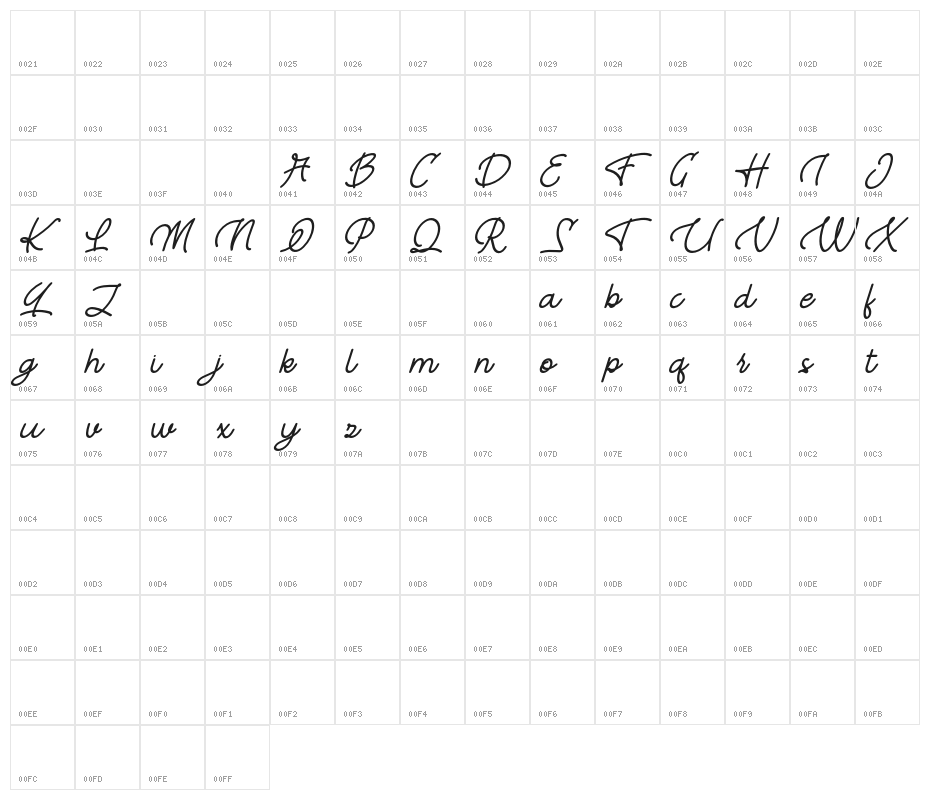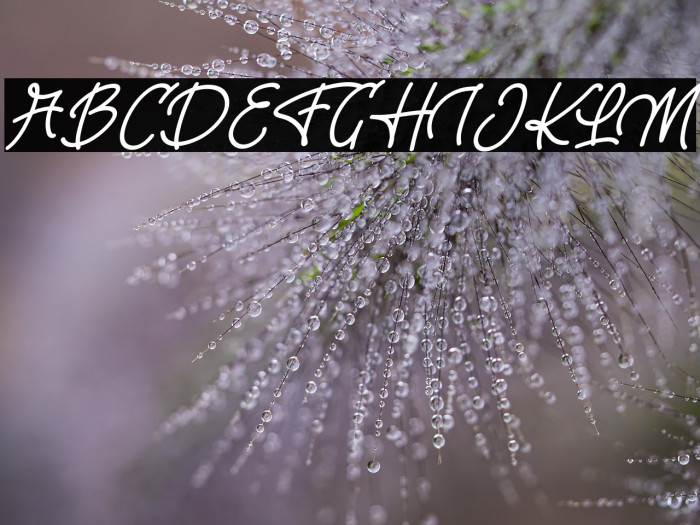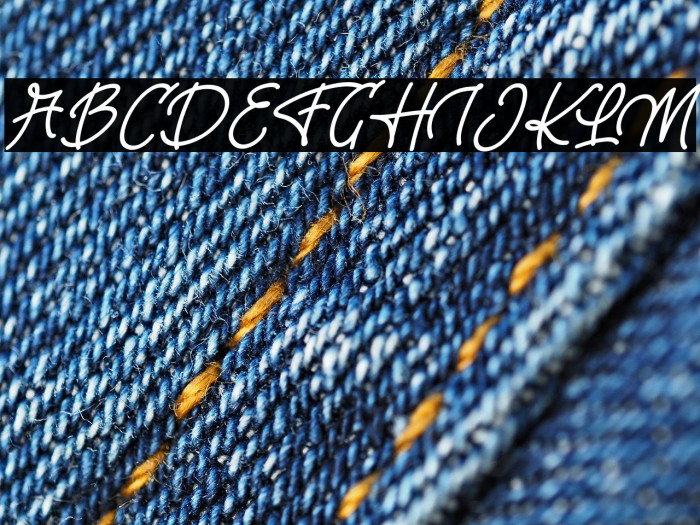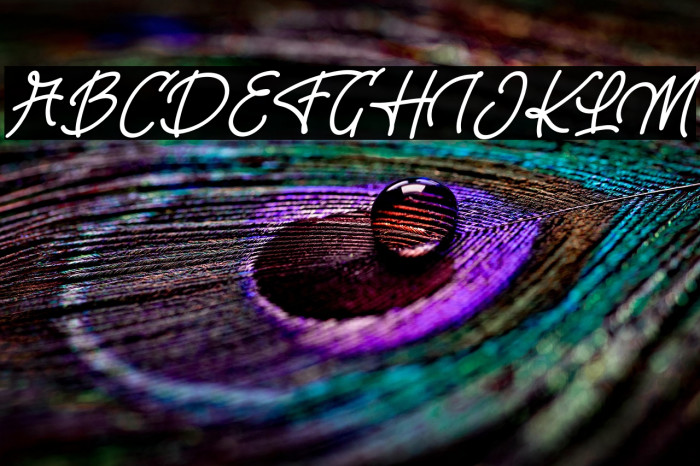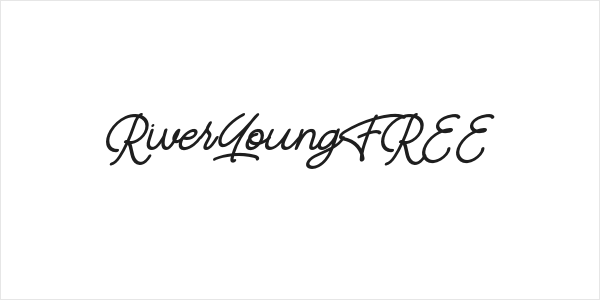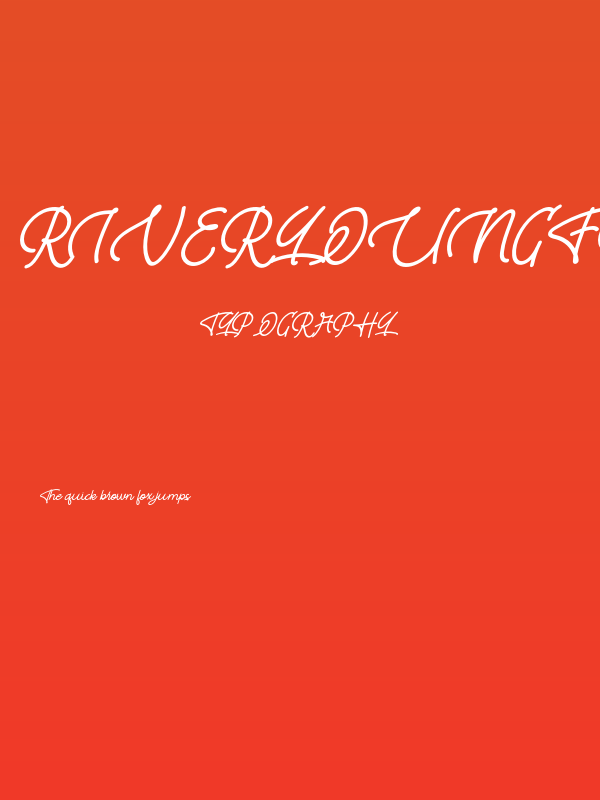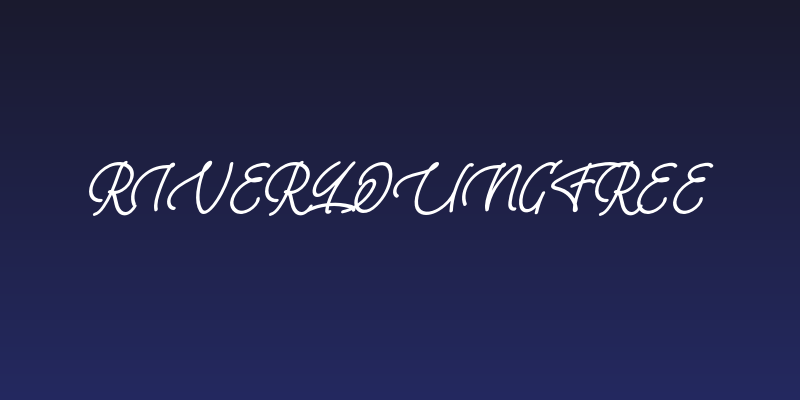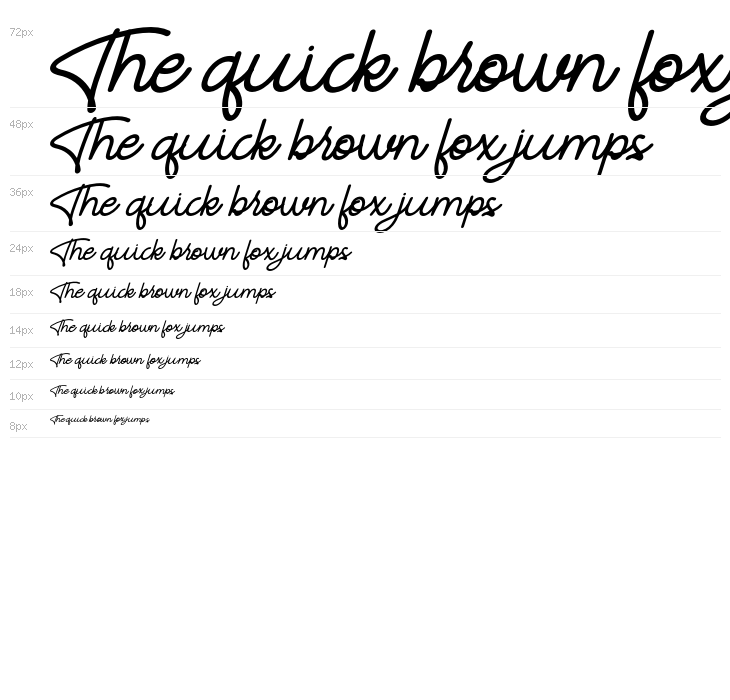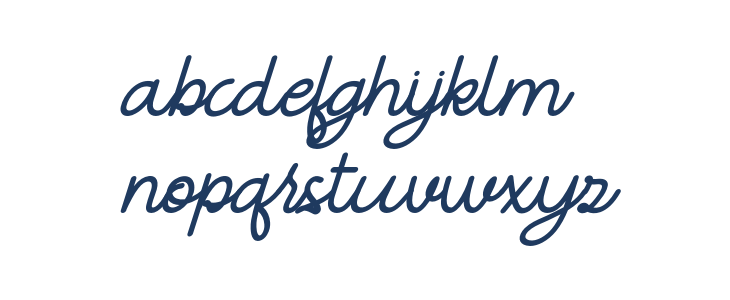
RiverYoungFREE Font
RiverYoungFREE Description
This font features a flowing, cursive style that mimics elegant handwriting. The uppercase letters are gracefully connected, while the lowercase letters maintain a smooth, continuous flow. The strokes are moderately thick, providing a balanced contrast that enhances readability. The font exudes a sense of sophistication and charm, making it suitable for projects that require a personal touch. The characters are slightly slanted, adding to the dynamic and lively appearance. Overall, this font combines traditional cursive elements with a modern twist, making it versatile for various design needs.
| Proposed Projects | Ideal for wedding invitations, greeting cards, personal branding, and elegant packaging designs. |